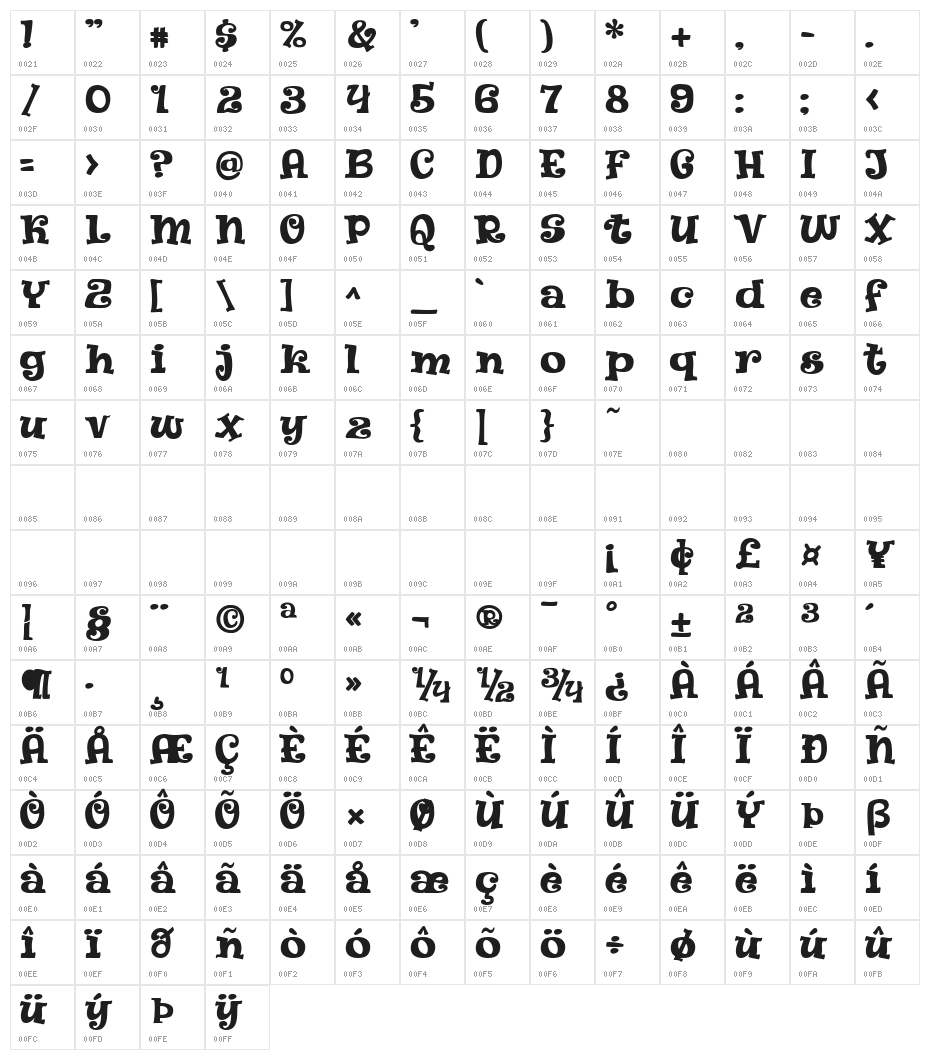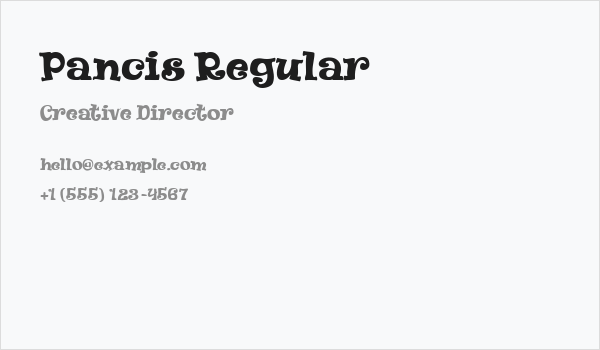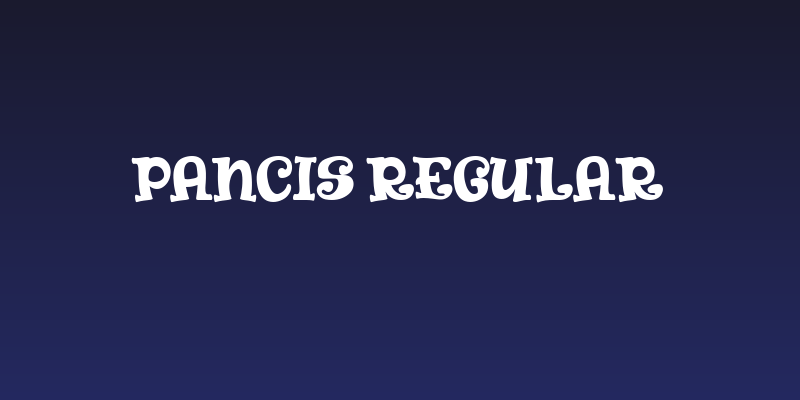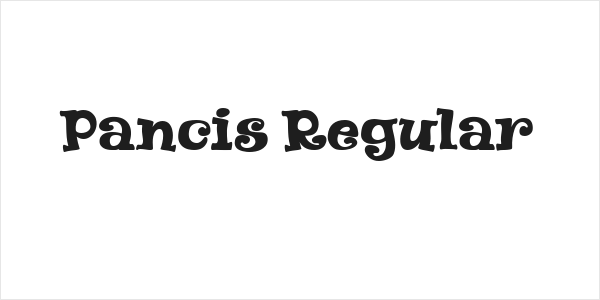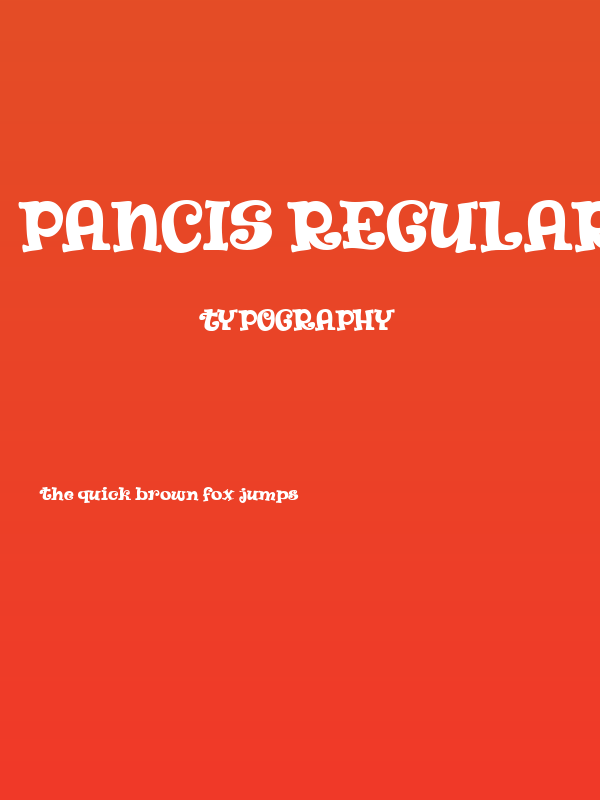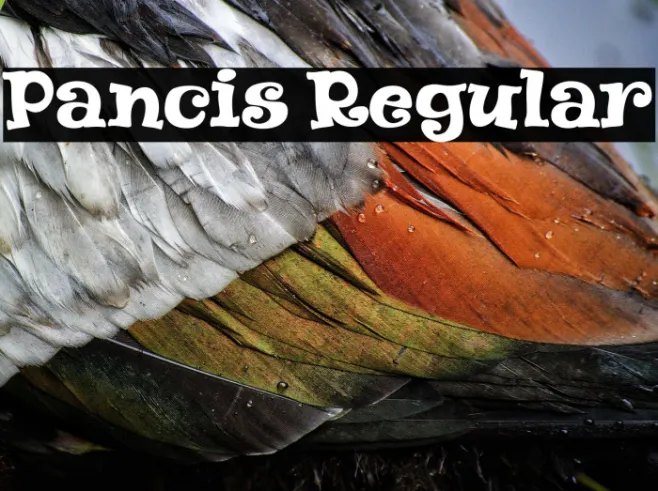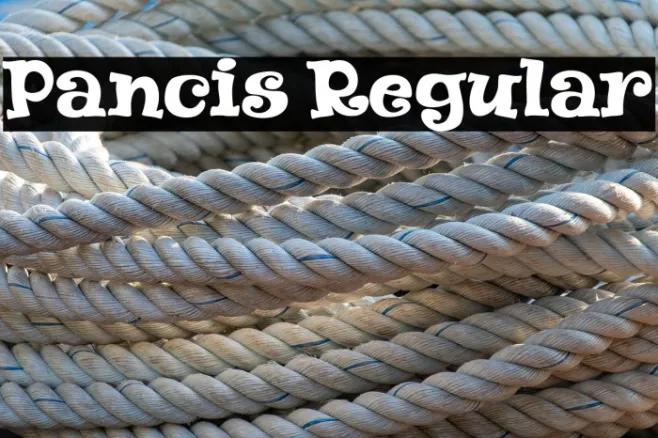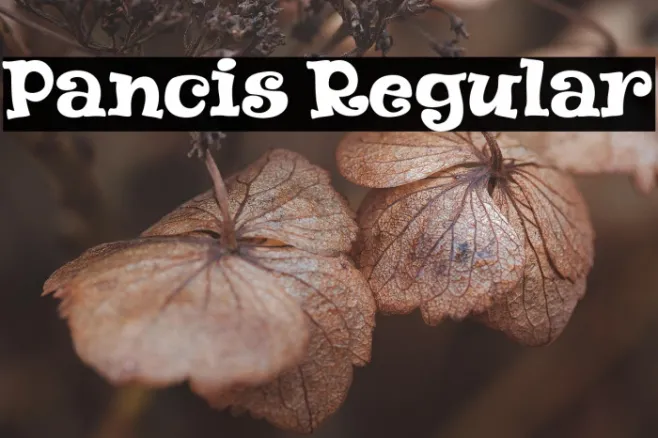
Pancis Regular Font
Pancis Regular Description
This font features a playful and bold design with a whimsical flair. The characters have a unique, rounded appearance with exaggerated curves and a slightly uneven baseline, adding to its quirky charm. The uppercase and lowercase letters maintain a consistent style, with the lowercase letters mirroring the playful nature of the uppercase. Numbers and special characters are equally bold and maintain the same whimsical style, making them stand out. The font's overall appearance is eye-catching and suitable for creative projects that require a fun and lively touch.